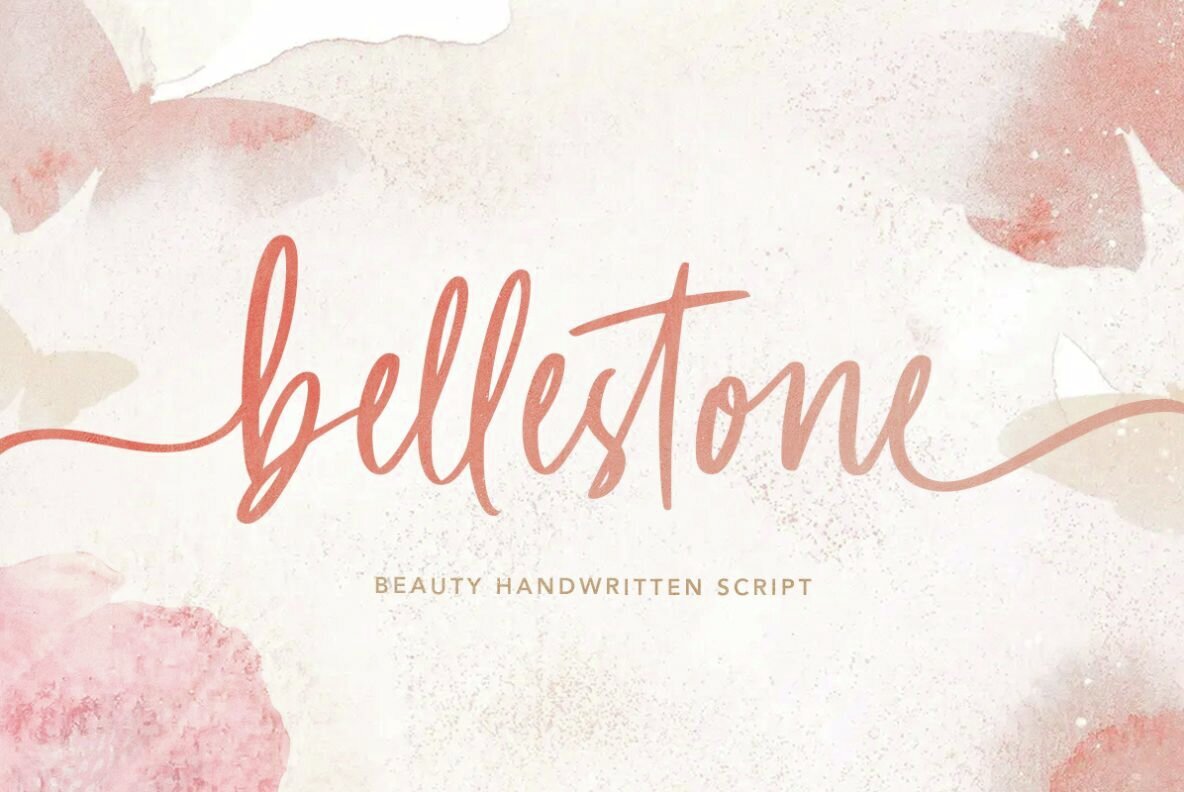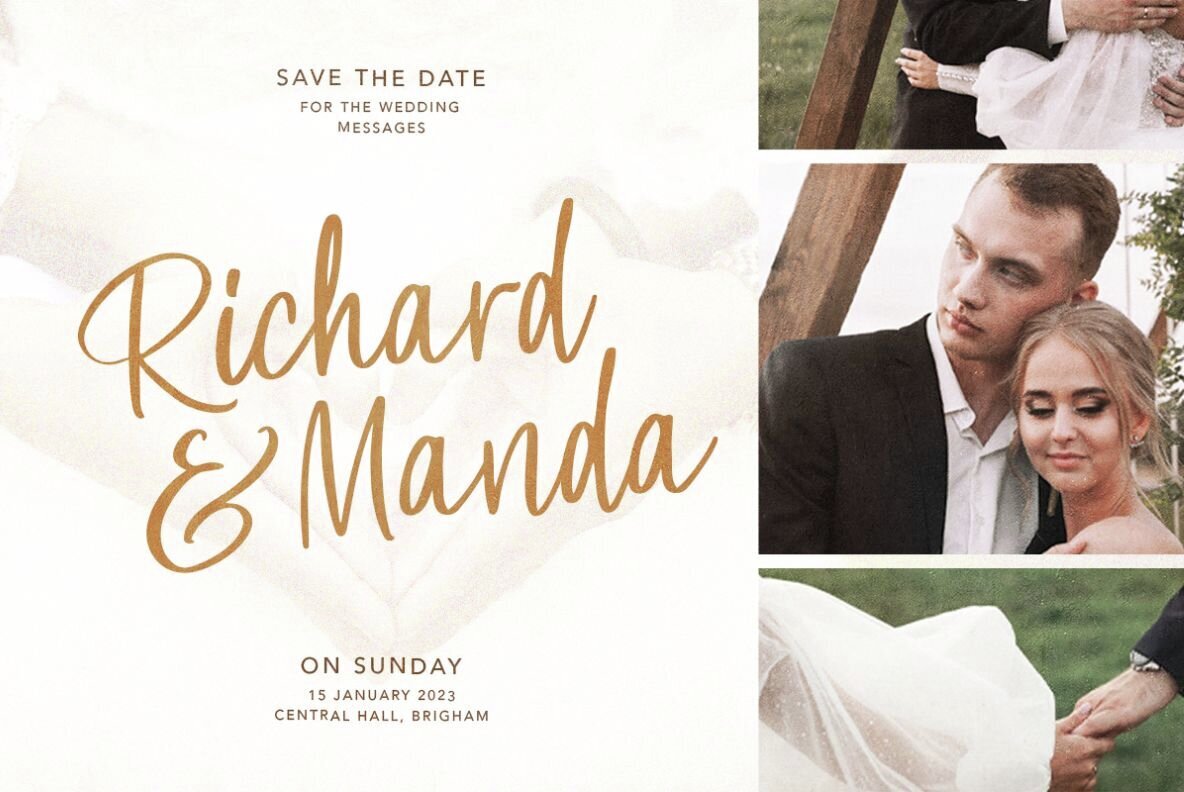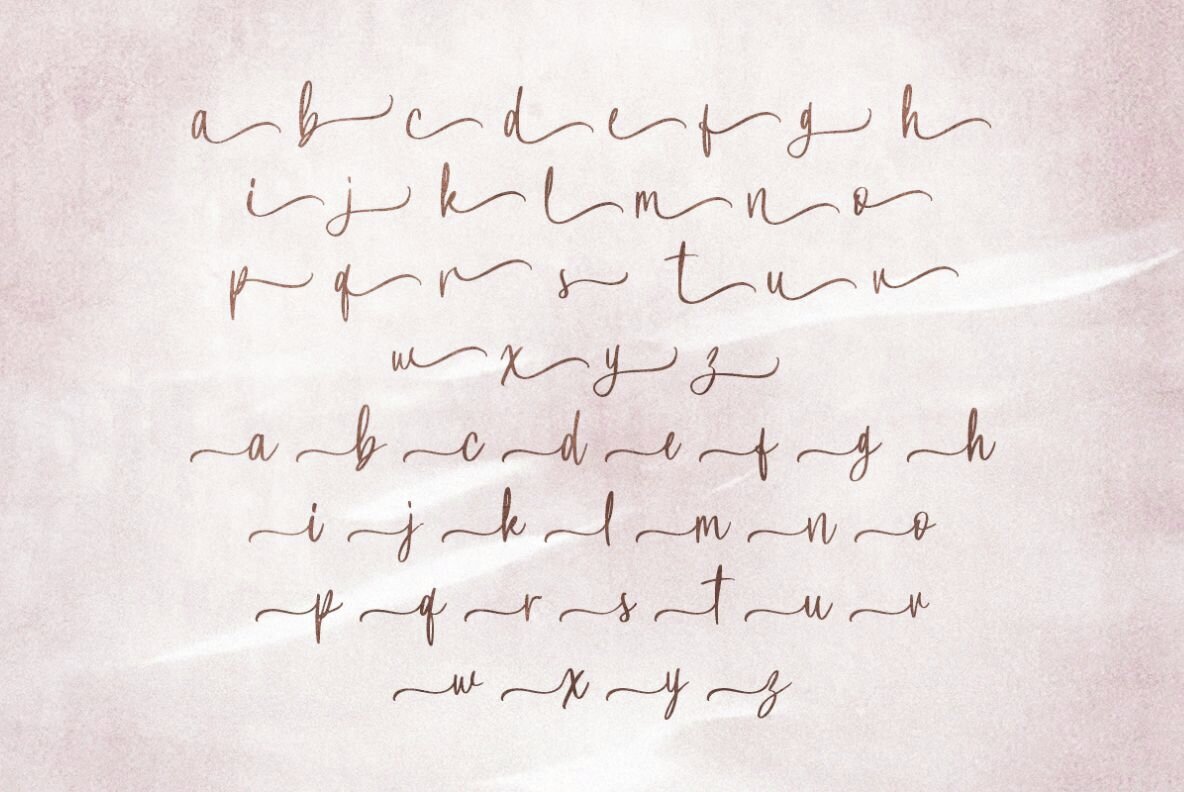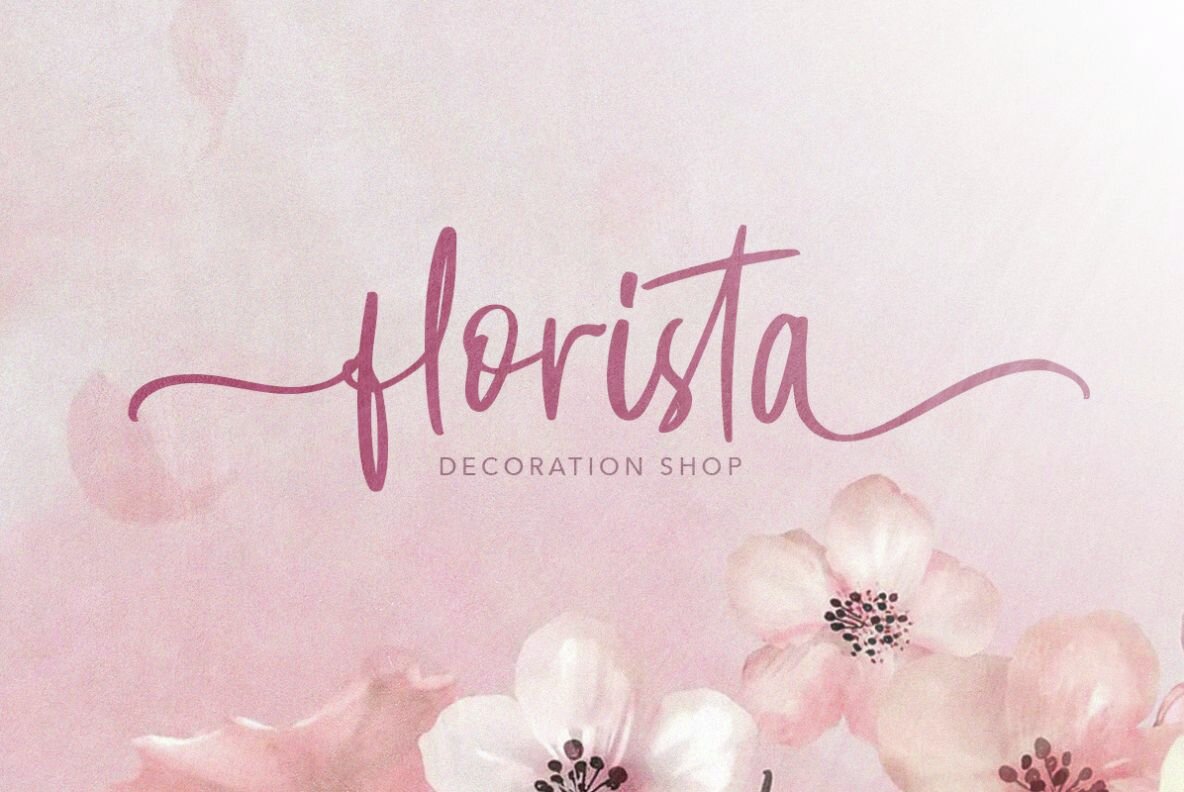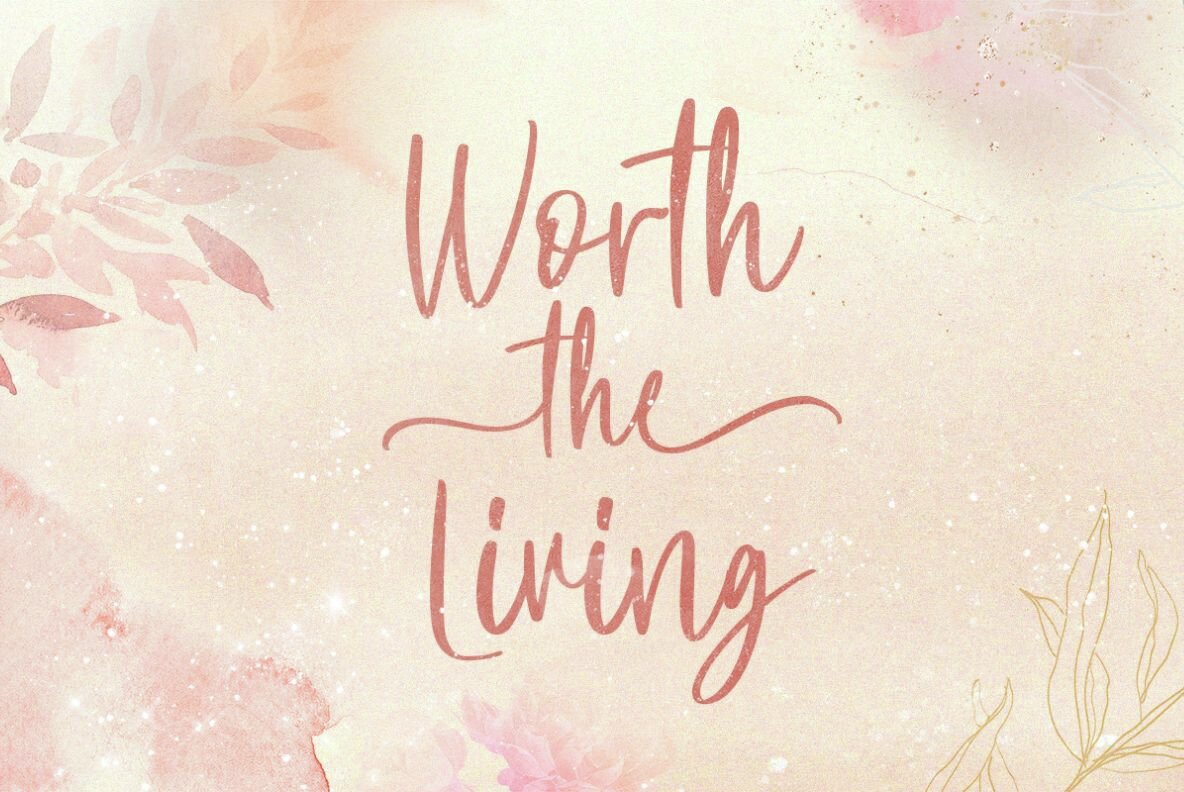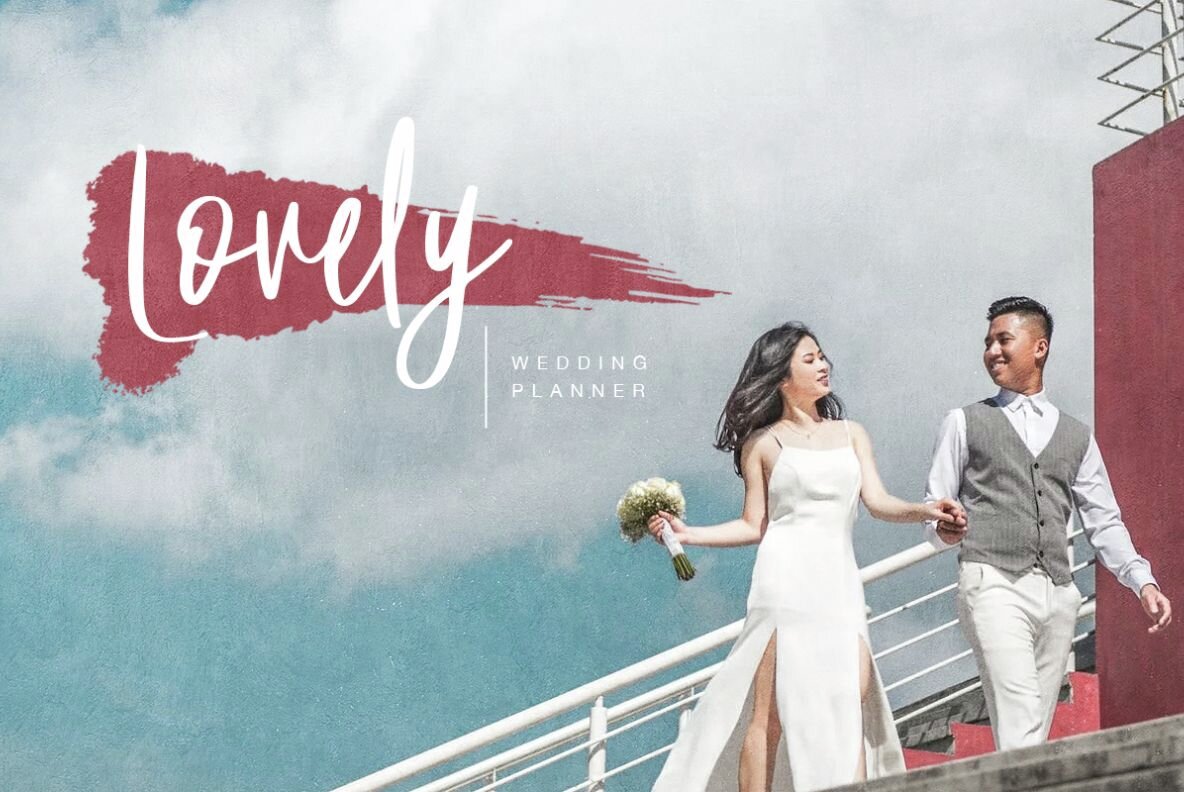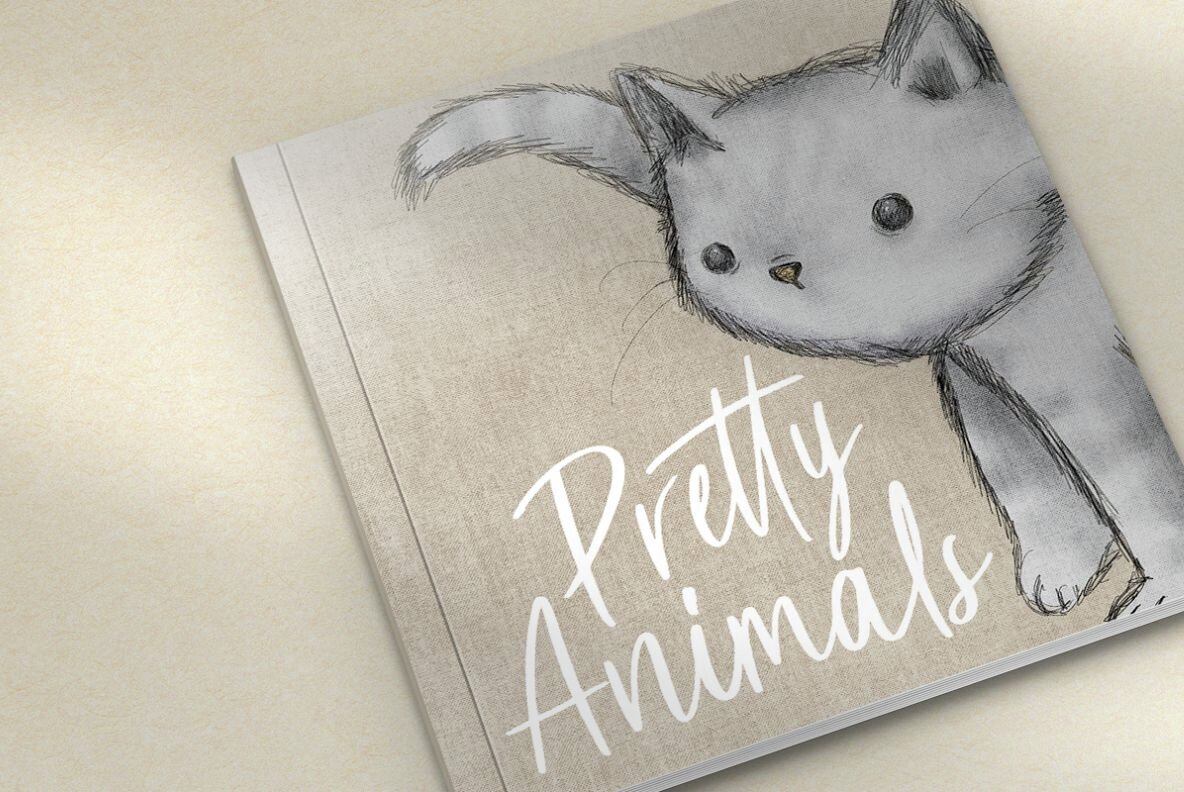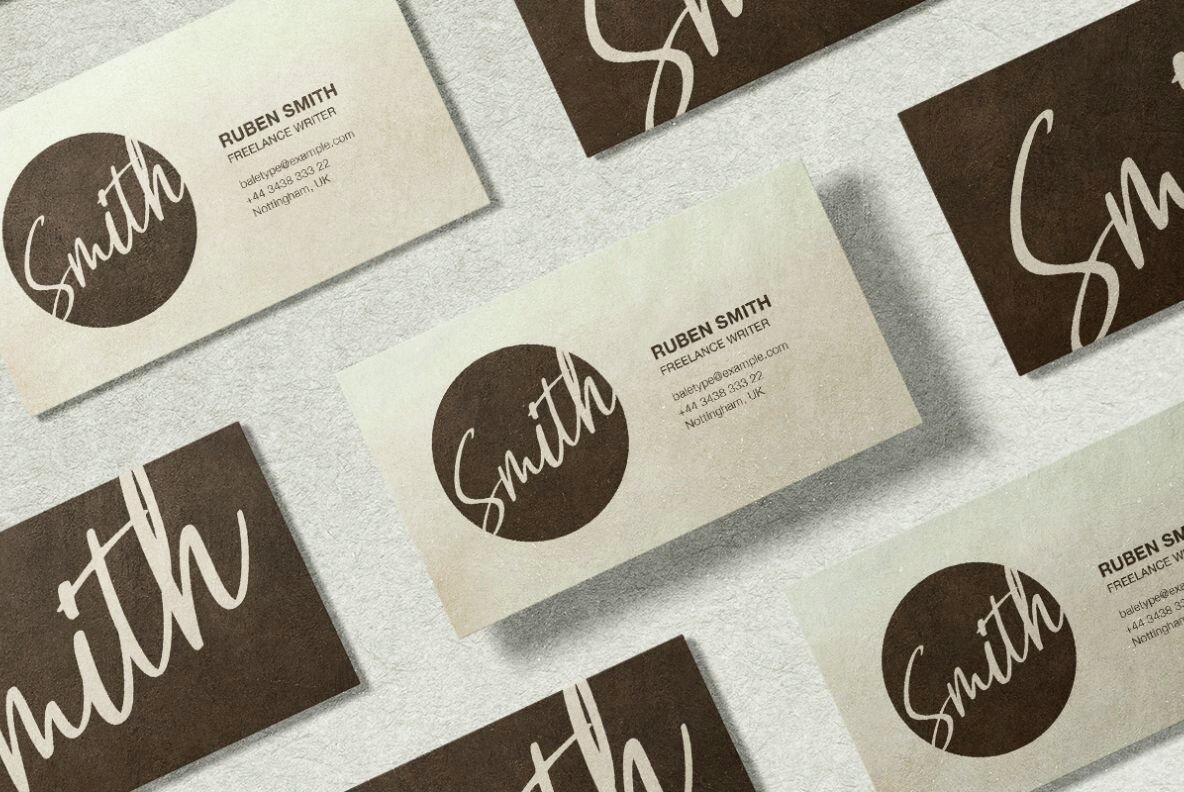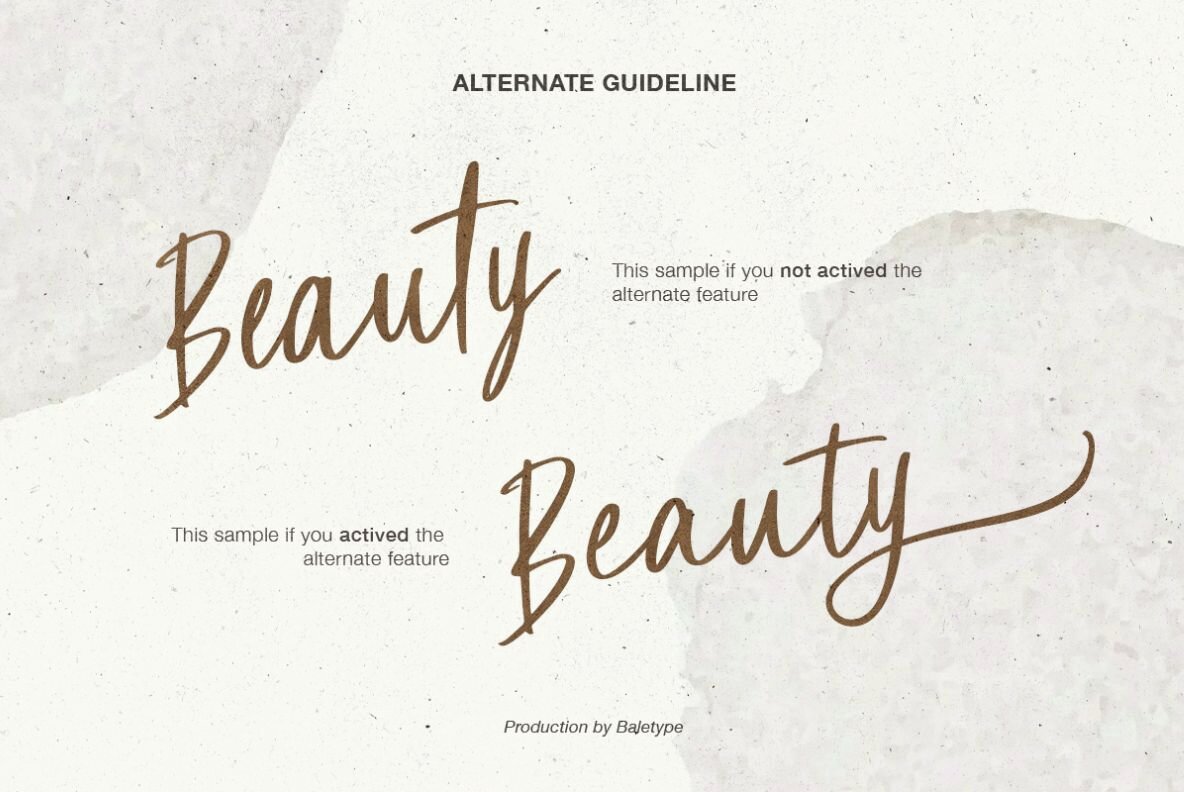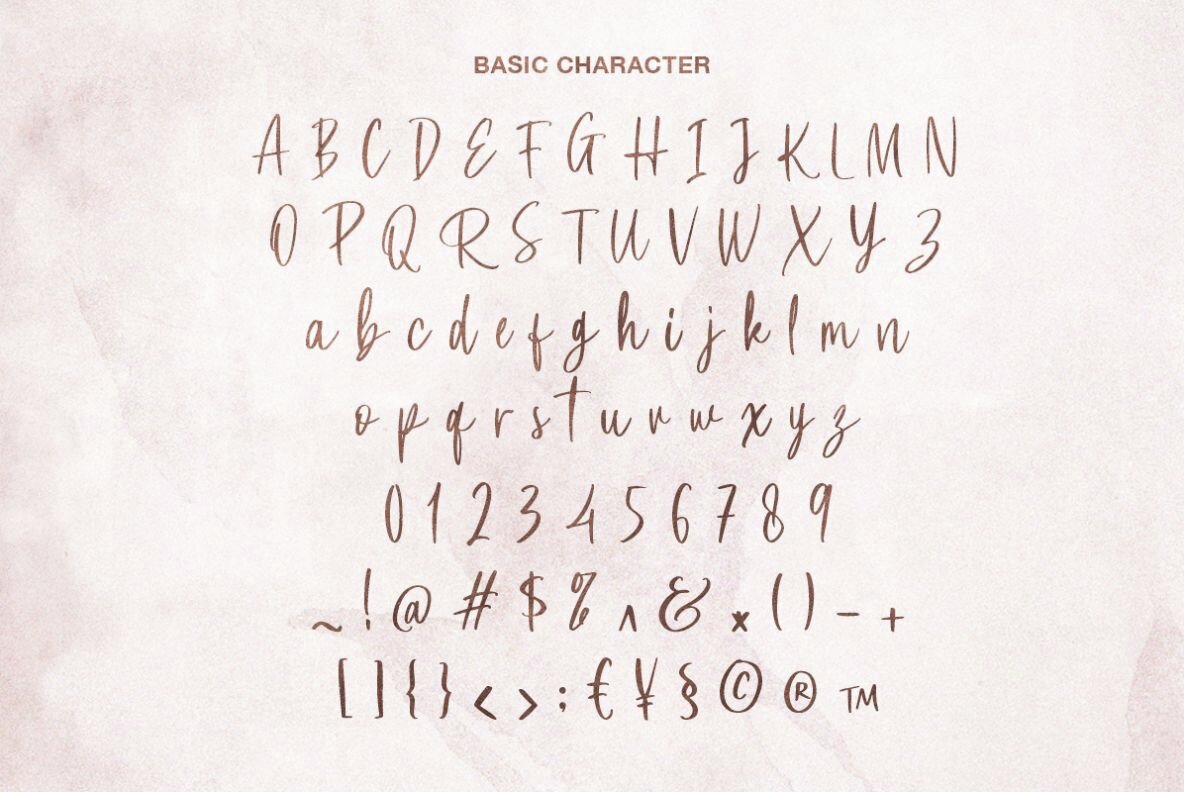
Bellestone Font
Bellestone Regular
Bellestone introduces a charming handwritten script that captures the grace of natural handwriting. It effortlessly adds an organic touch to your designs, enhancing their visual appeal. Ideal for conveying a sense of elegance, this versatile font is perfect for a range of applications, from captivating wedding invitations to stylish logotypes.Bellestone: Elegance in Every Stroke
Perfect for Creative Projects